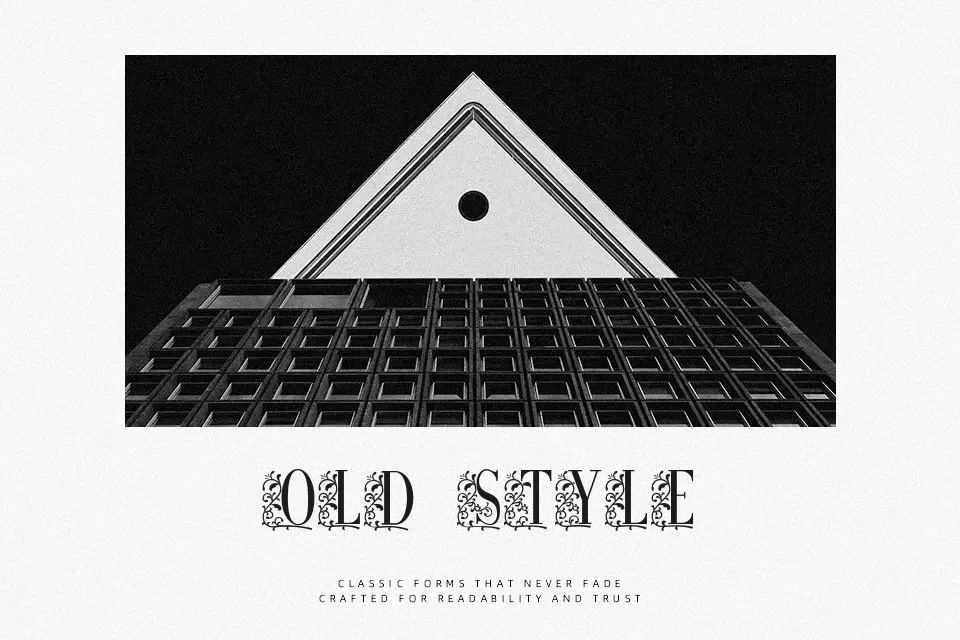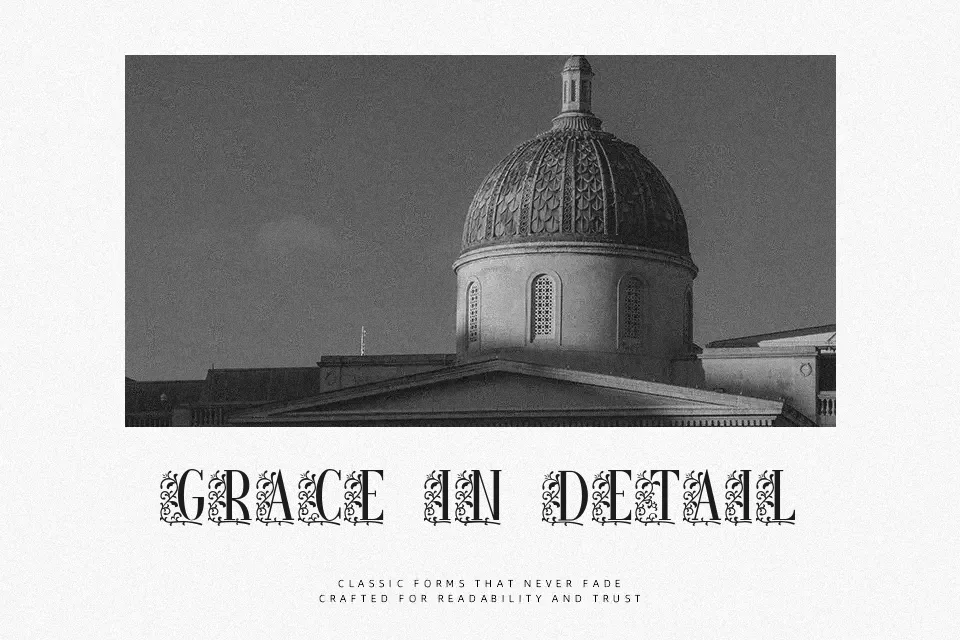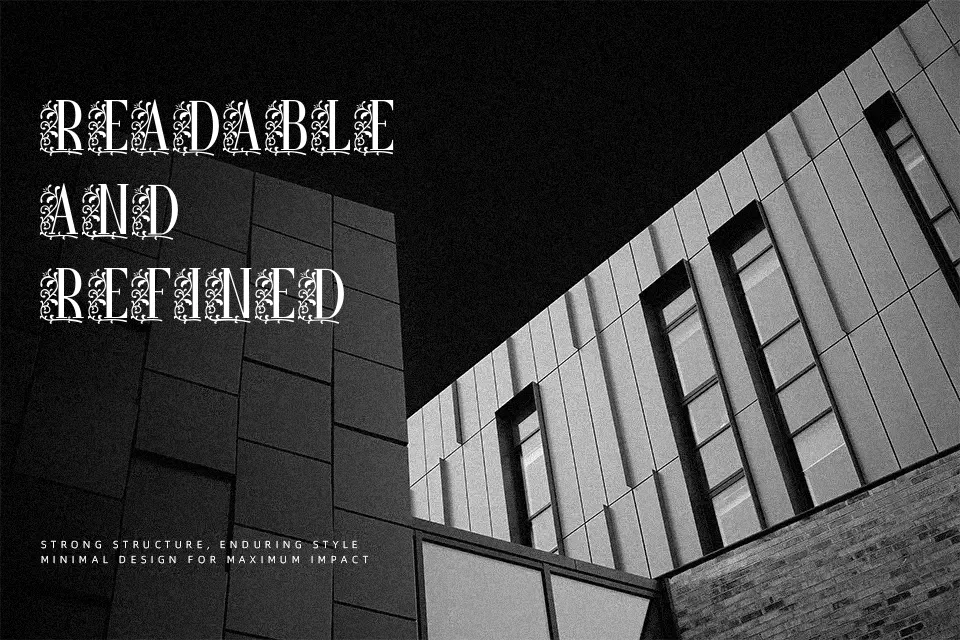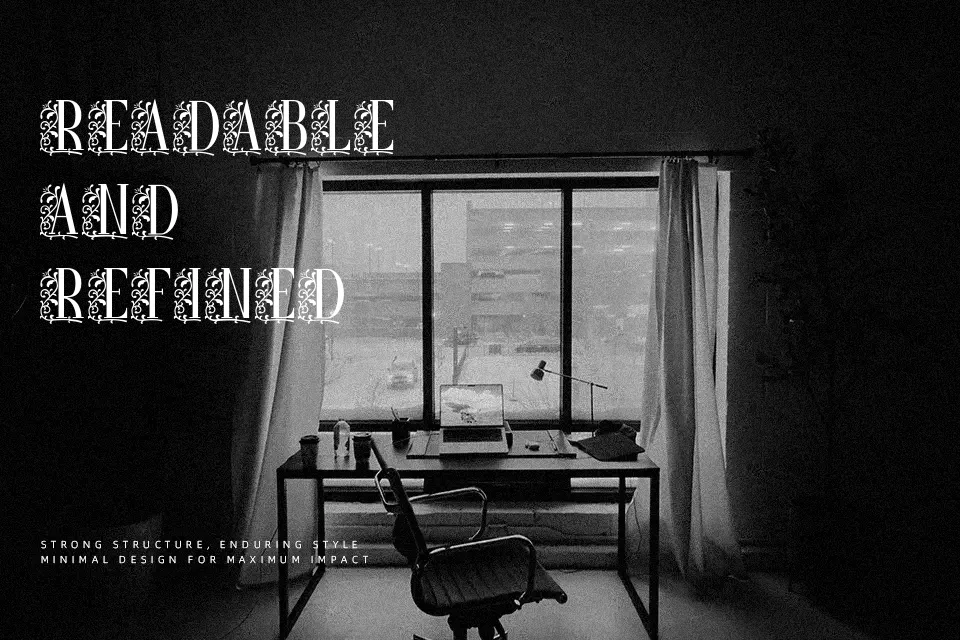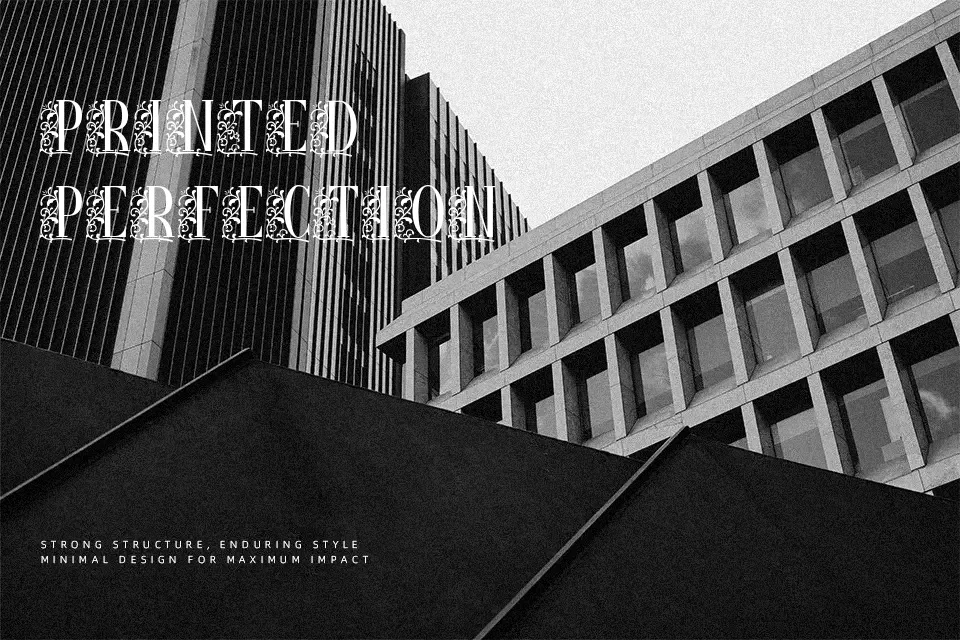
Remeslo STD Font
Designed by Denis Serikov
This typeface performs best when displayed at larger sizes, allowing the highly detailed floral embellishments of the Remeslo STD Font to remain distinctly visible. Featuring heavy primary strokes enveloped by delicate botanical ornamentation, the intricate letterforms project an elegant, vintage aesthetic. Character proportions are inherently wide to accommodate the elaborate interior and exterior decorations. The open spacing helps maintain clarity in larger headlines, ensuring the delicate curves do not bleed together. Because of its intense decorative complexity, the design completely loses legibility in continuous reading environments or dense paragraphs. It serves brilliantly for dramatic drop caps in specialty editorial layouts or luxurious boutique branding where each character functions as an independent piece of art.
vintage product packaging
luxury boutique branding
editorial drop caps
elegant wedding invitations
Perfect for editorial, headline, and logo, with a artistic and decorative style.